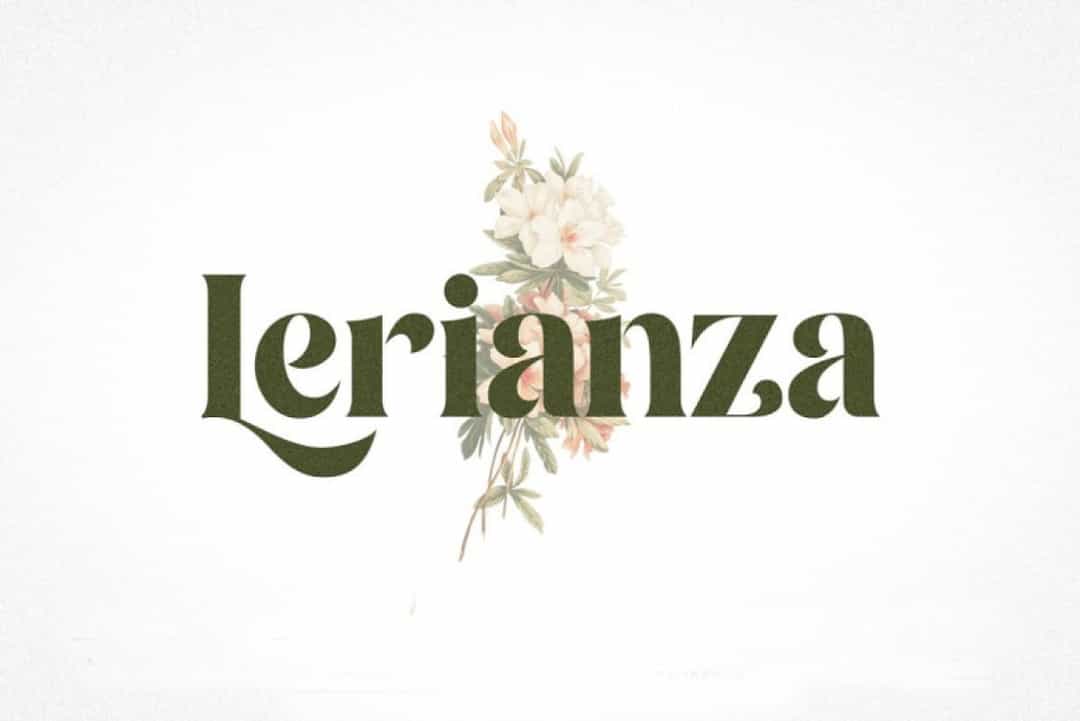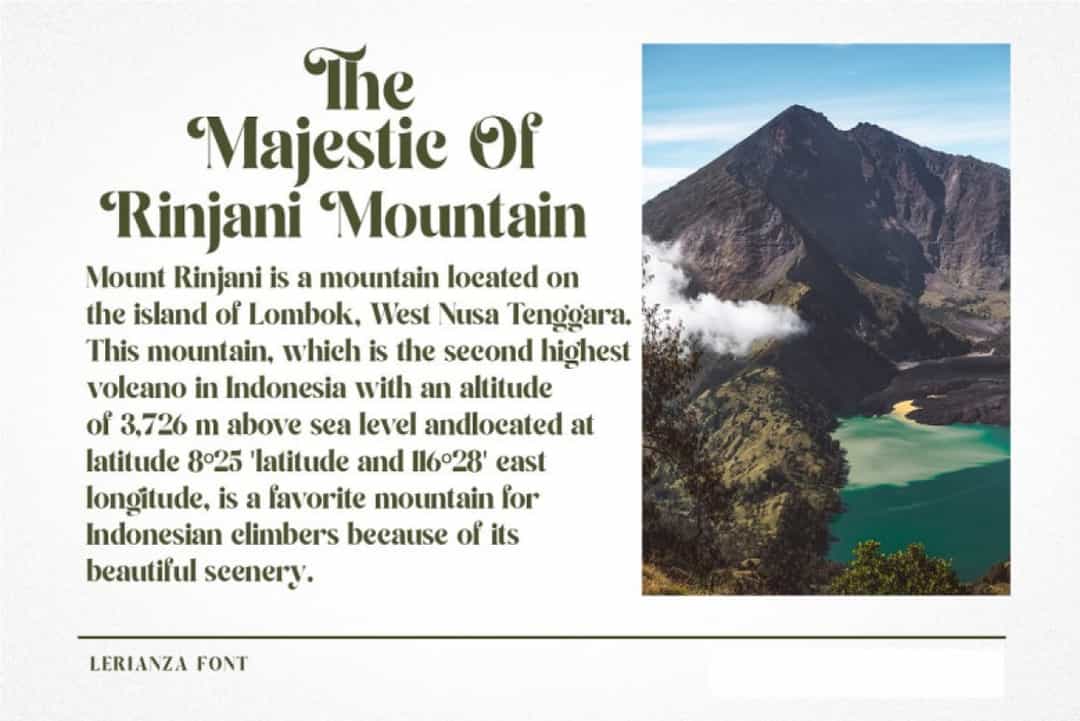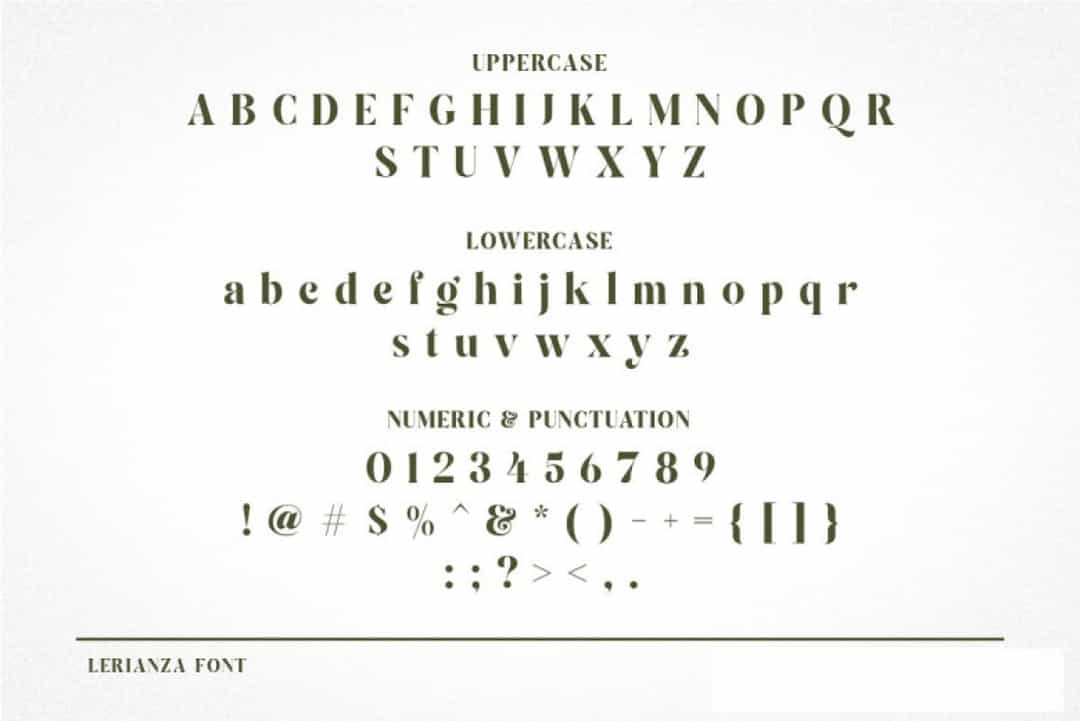
Lerianza is an intriguing serif typeface. With its variety of uses and stylish looks, Lerianza makes for beautiful designs! Let its originality charm you.